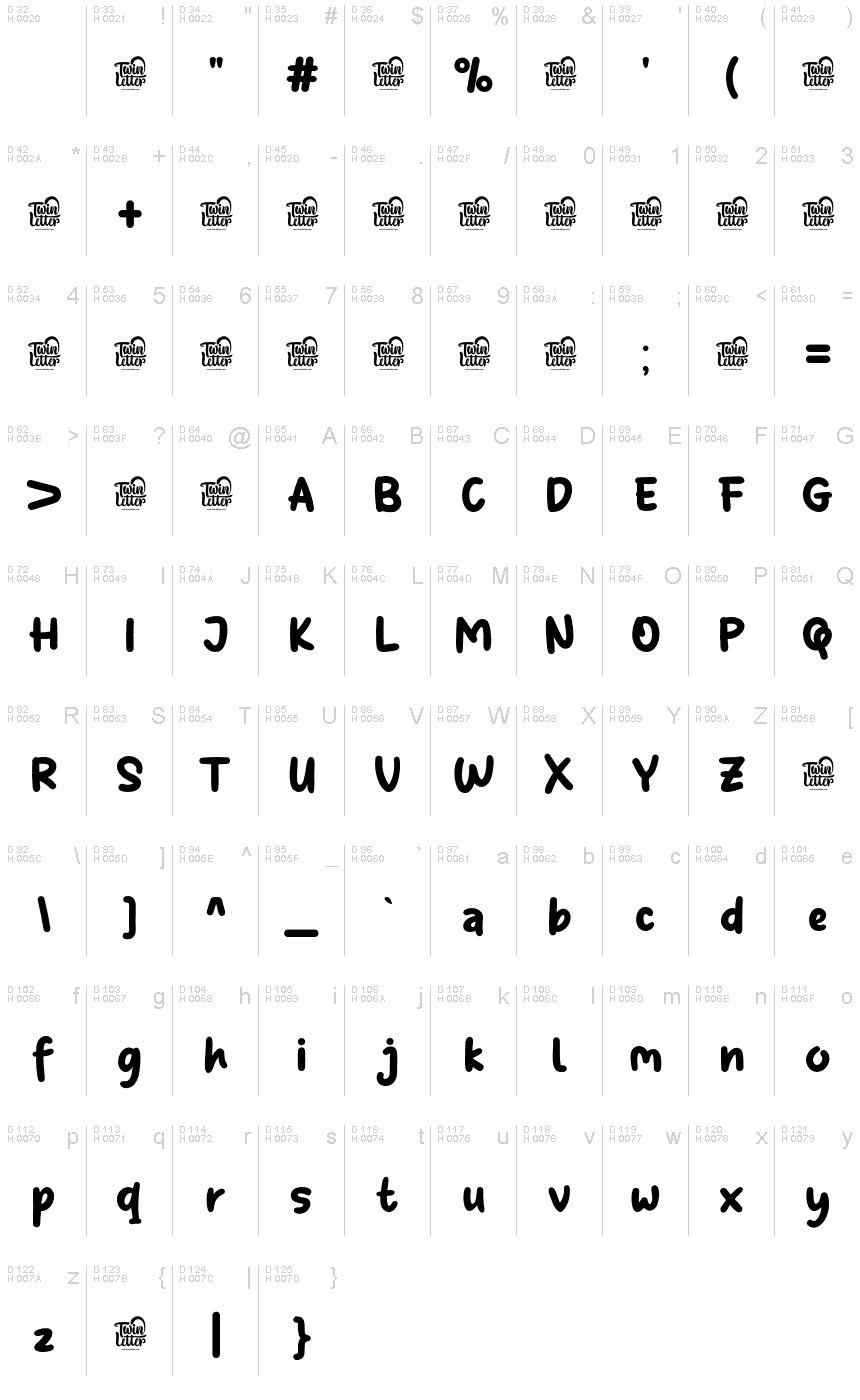
Shyest-Regular
Say hello to Shyest, the fun and quirky display font designed by twinletter. With its cartoon-inspired style and semi-bold weight, Shyest is perfect for a variety of projects that are meant to stand out. Use it on children's book covers to add a playful touch, or on party invitations for a fun and lighthearted feel. The unique design of this font makes it ideal for branding projects as well - use it on your logo or website headers to give your brand a distinct personality. Don't be shy - try out Shyest today!